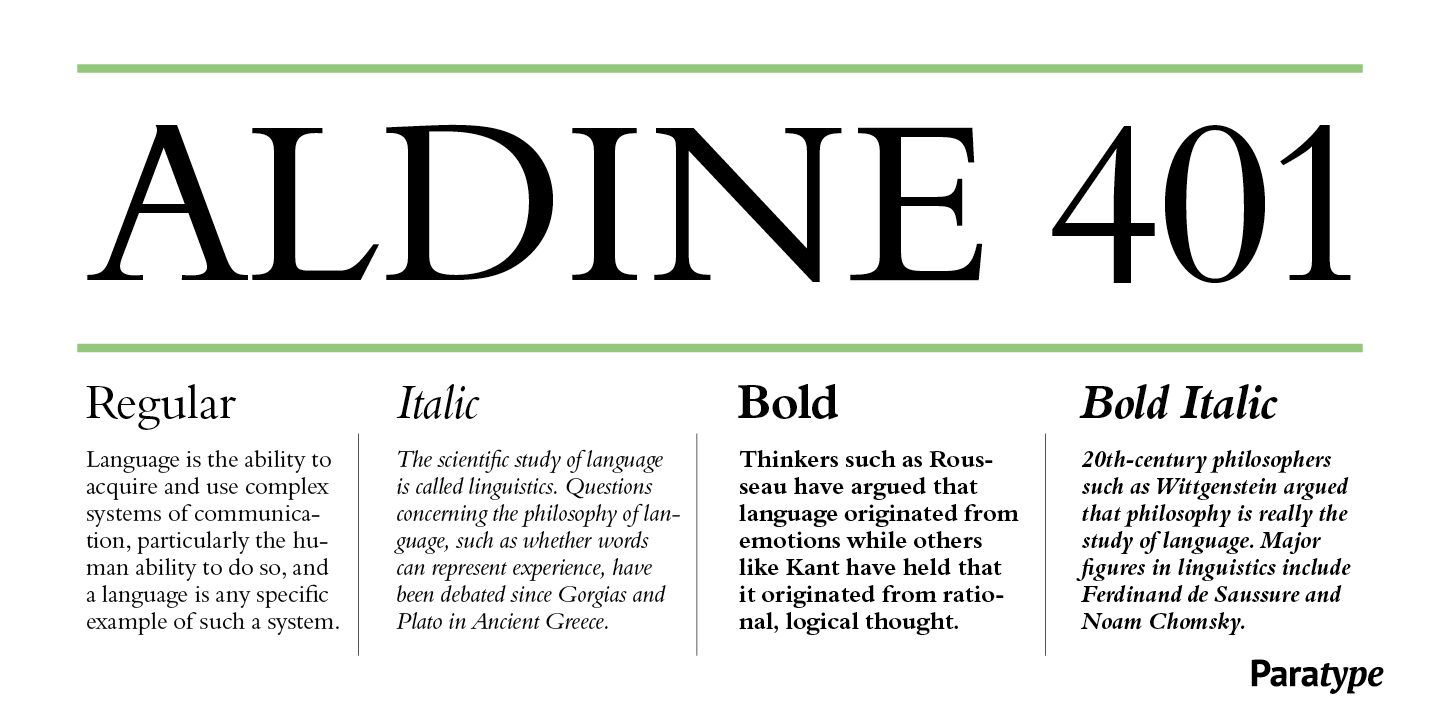
Aldine 401 Font is perfect for scholarly publications, academic textbooks, classical literature editions, historical manuscripts, prestigious university materials, formal research papers, traditional book publishing, and distinguished design projects that require traditional typography with classical elegance and scholarly authority.
This Aldine 401 Font is exciting because it honors the legacy of Aldus Manutius and Renaissance printing traditions with refined letterforms that embody centuries of typographic excellence, featuring classical proportions and scholarly character details that convey academic authority while maintaining exceptional readability for extended reading and scholarly discourse.
The Aldine 401 Font family includes traditional weights with classical styling, complete character sets with scholarly uppercase and lowercase letters, academic numerals, formal punctuation, and educational symbols that provide comprehensive typography solutions for academic and scholarly design projects requiring authentic classical aesthetics and intellectual appeal.
Perfect for creating distinguished academic communications and scholarly brand identities, Aldine 401 Font Free Download delivers the classical typography that transforms text into powerful expressions of intellectual excellence and scholarly tradition. This distinctive typeface represents centuries of academic publishing heritage, making it essential for projects celebrating scholarly achievement, academic excellence, intellectual discourse, and any design requiring classical character with authentic scholarly sophistication and timeless academic appeal that honors the tradition of learning.